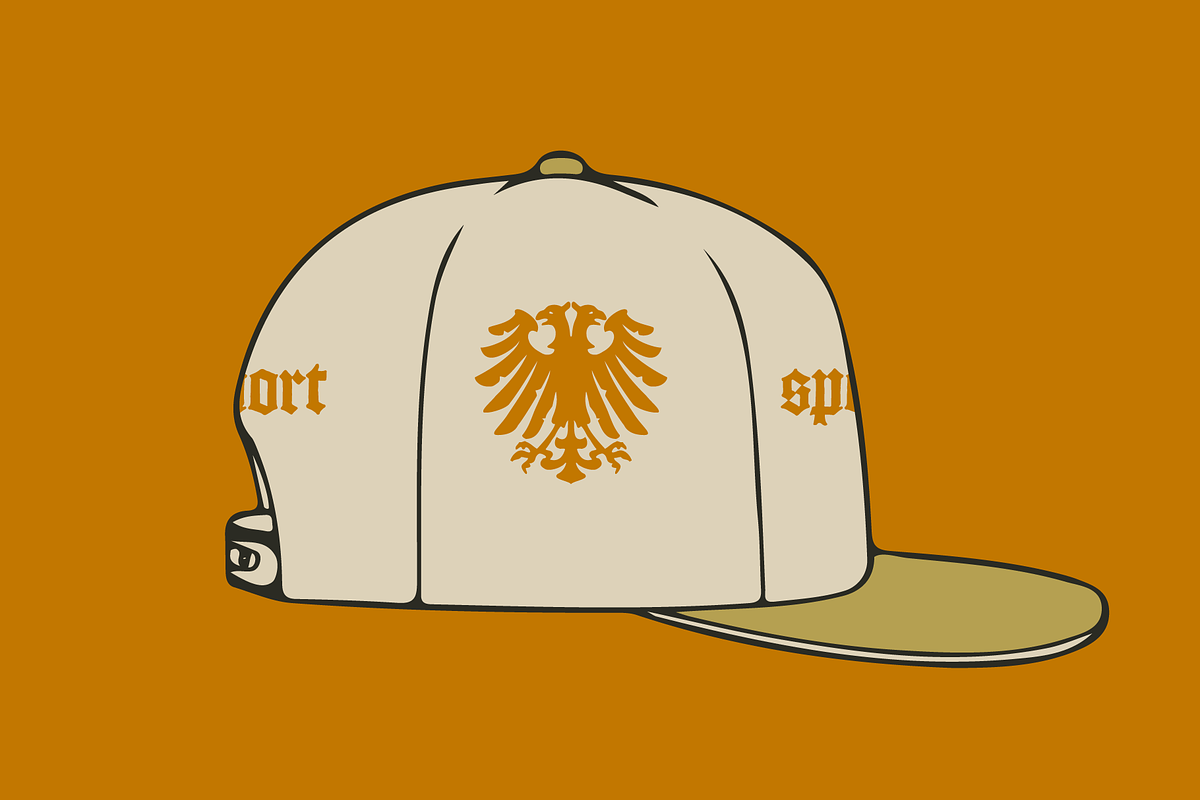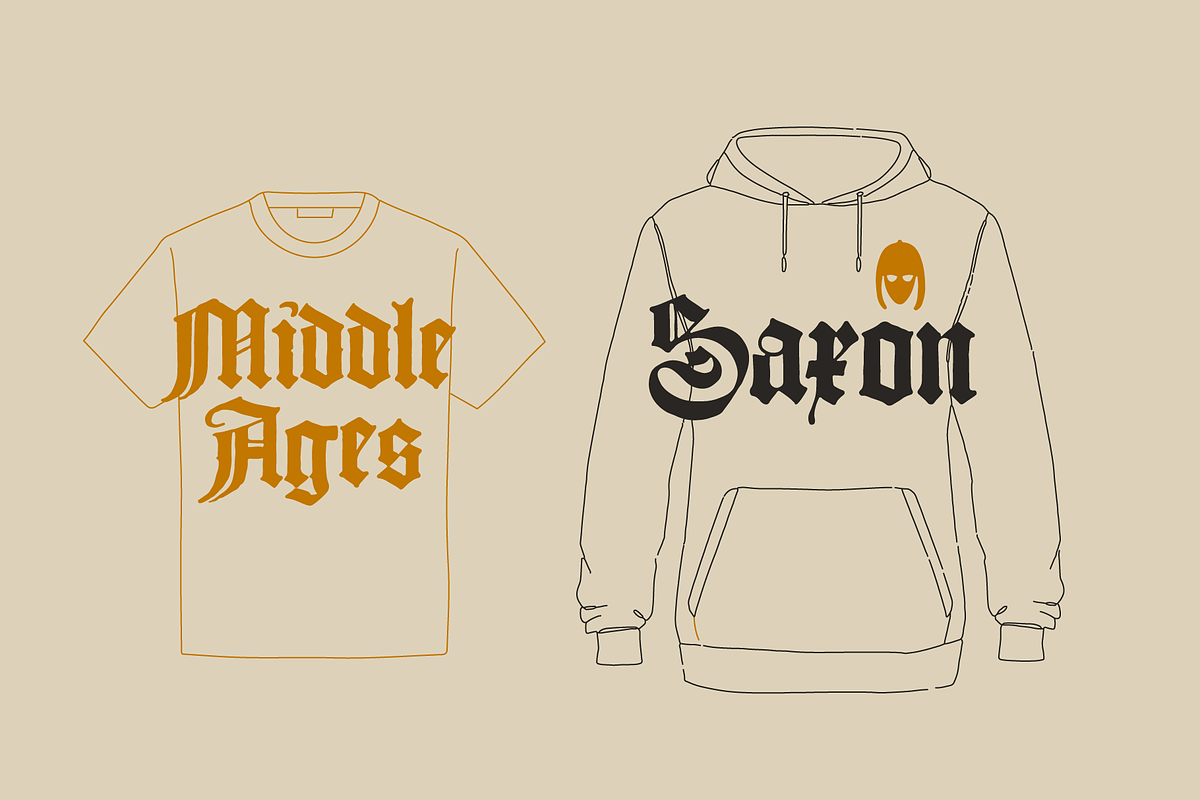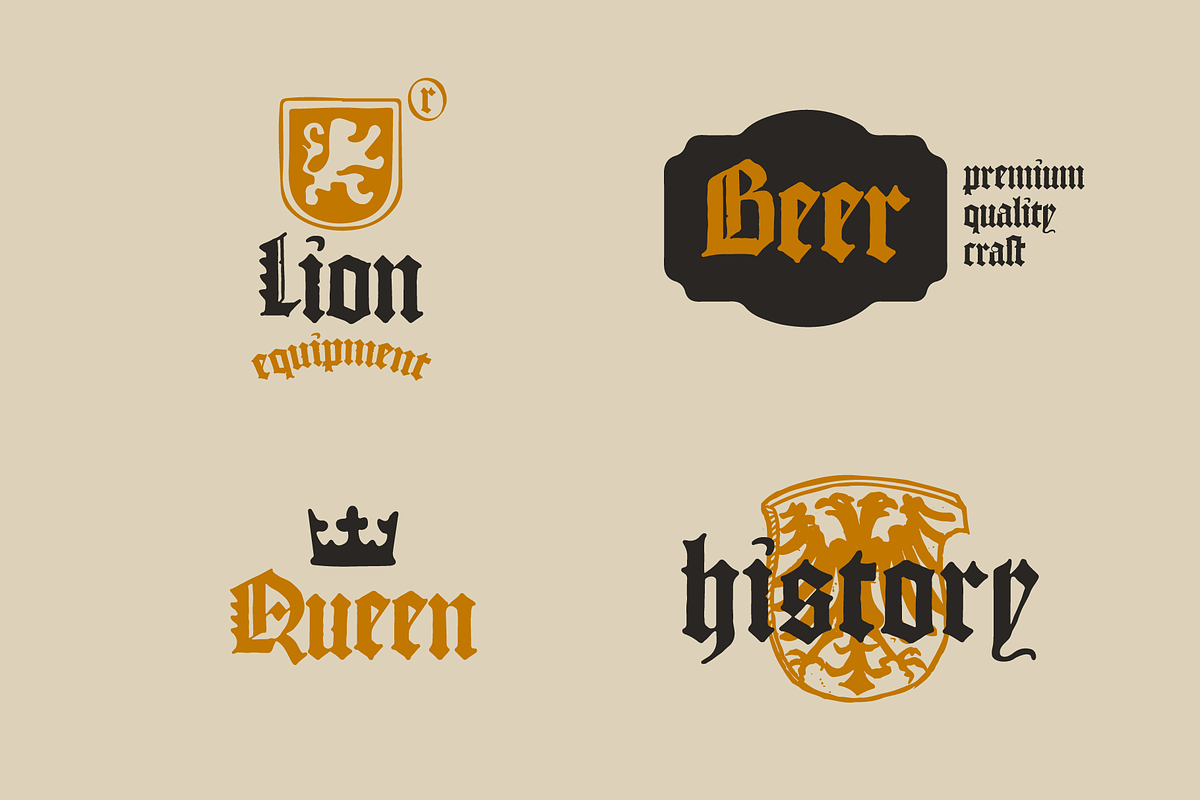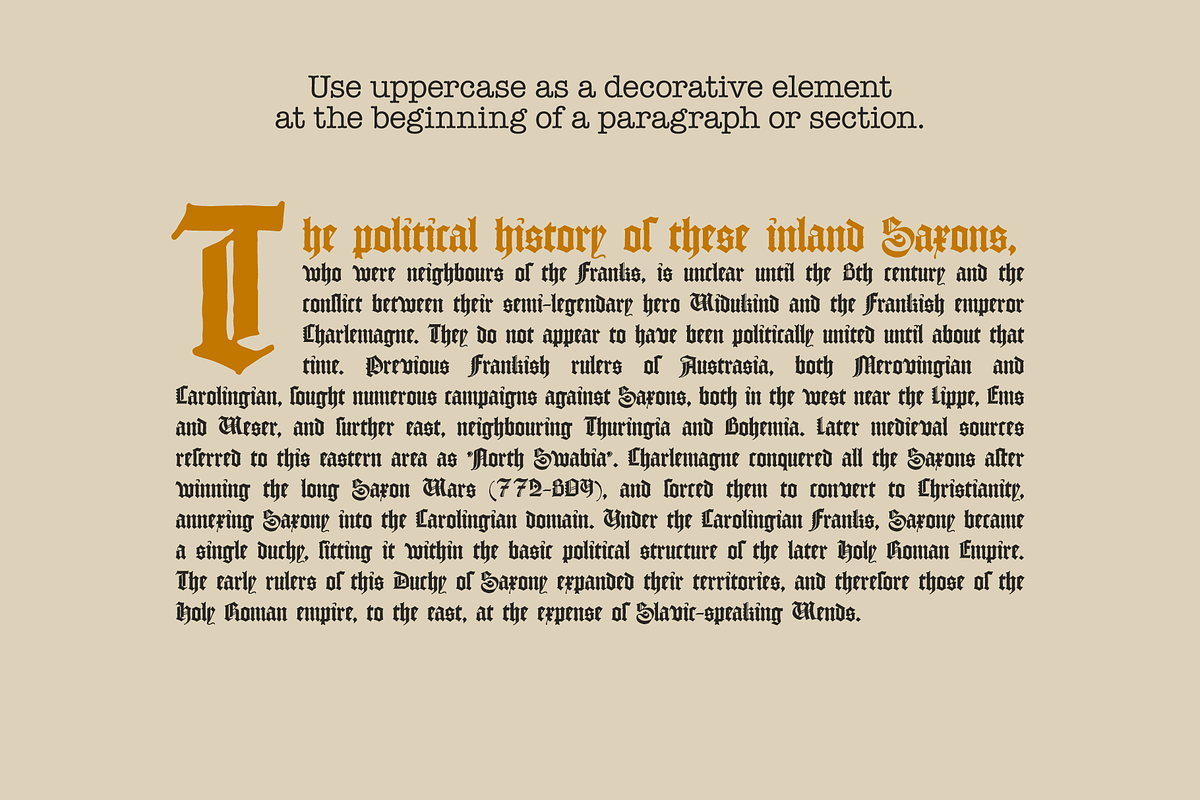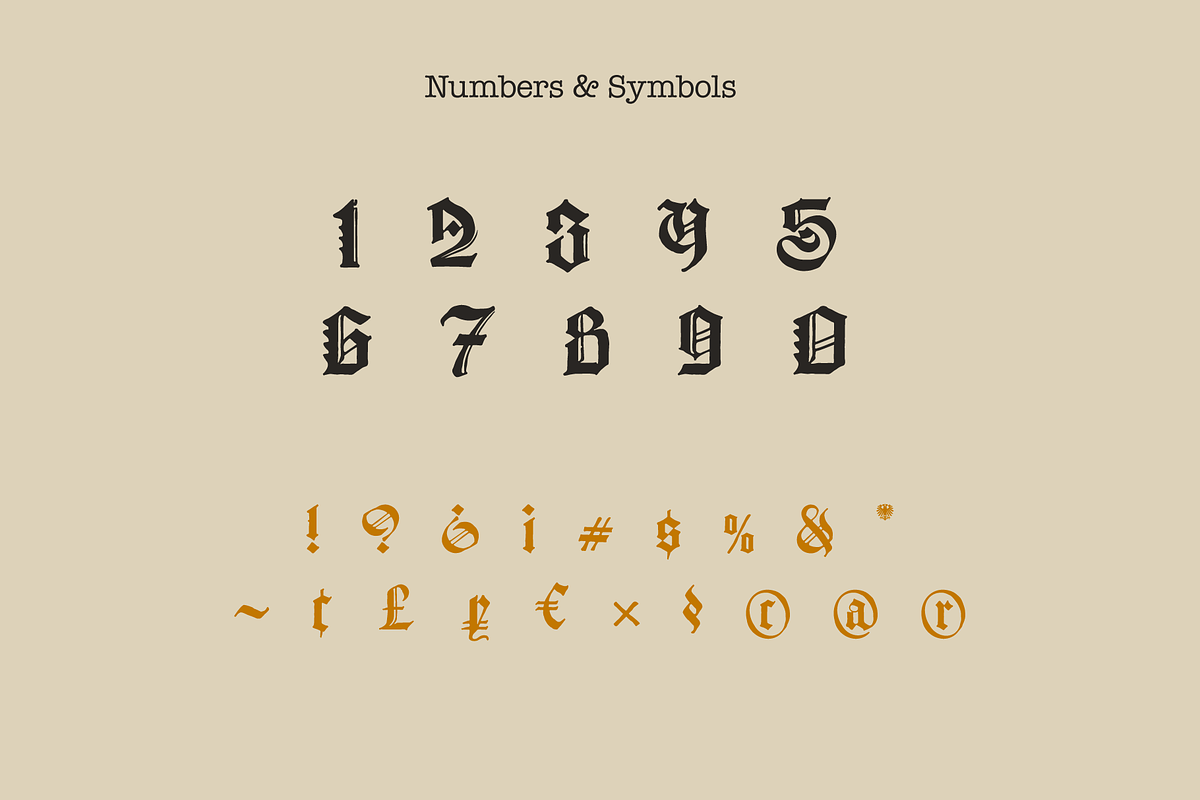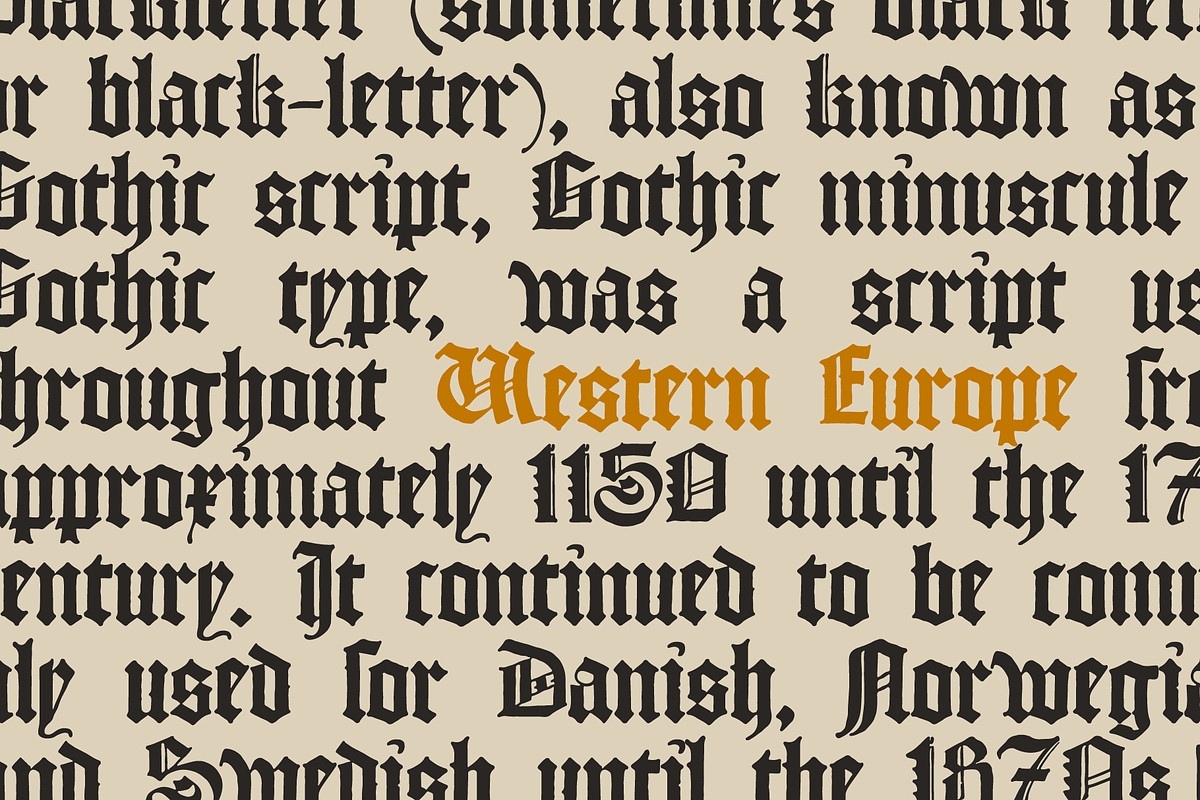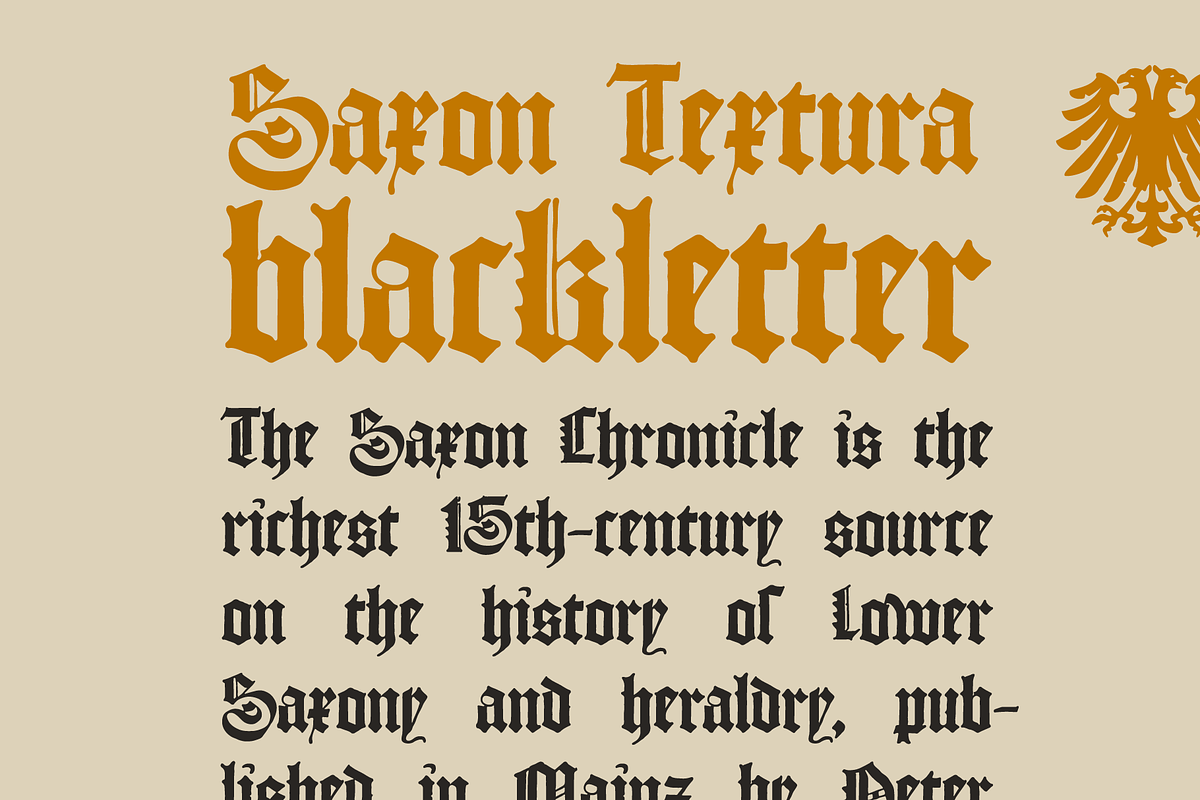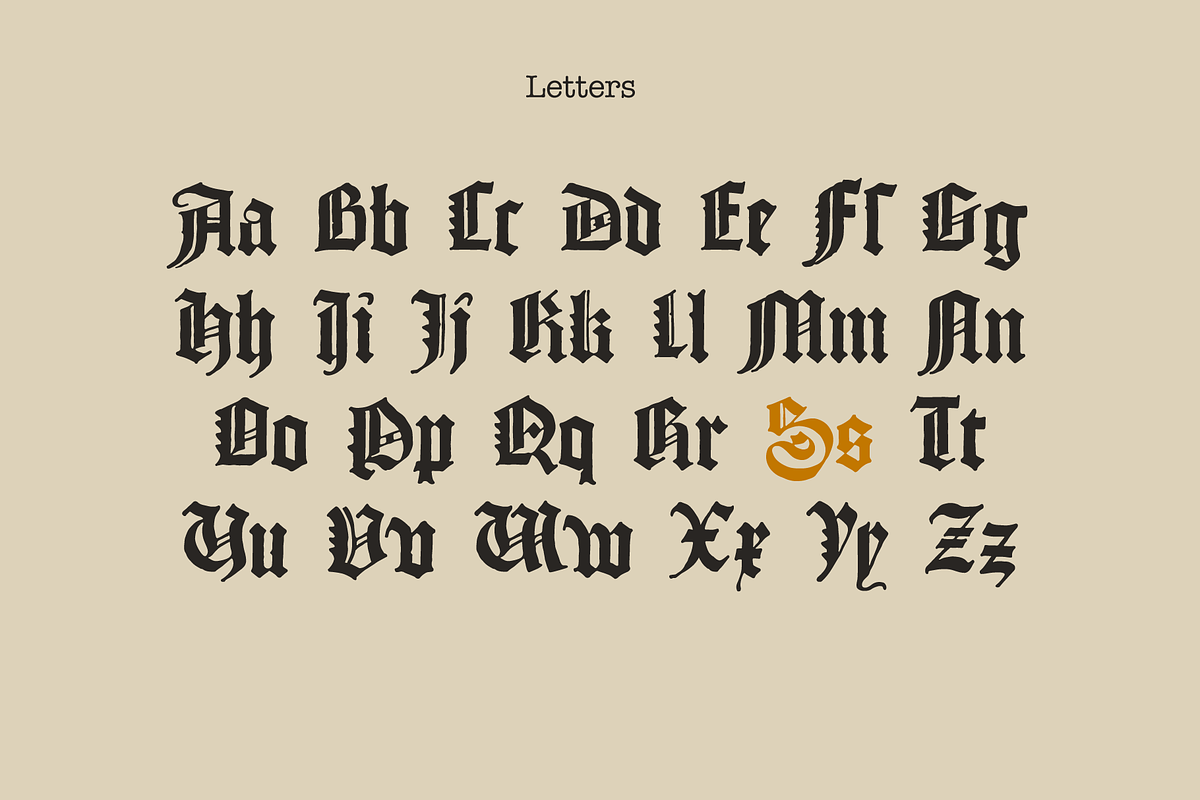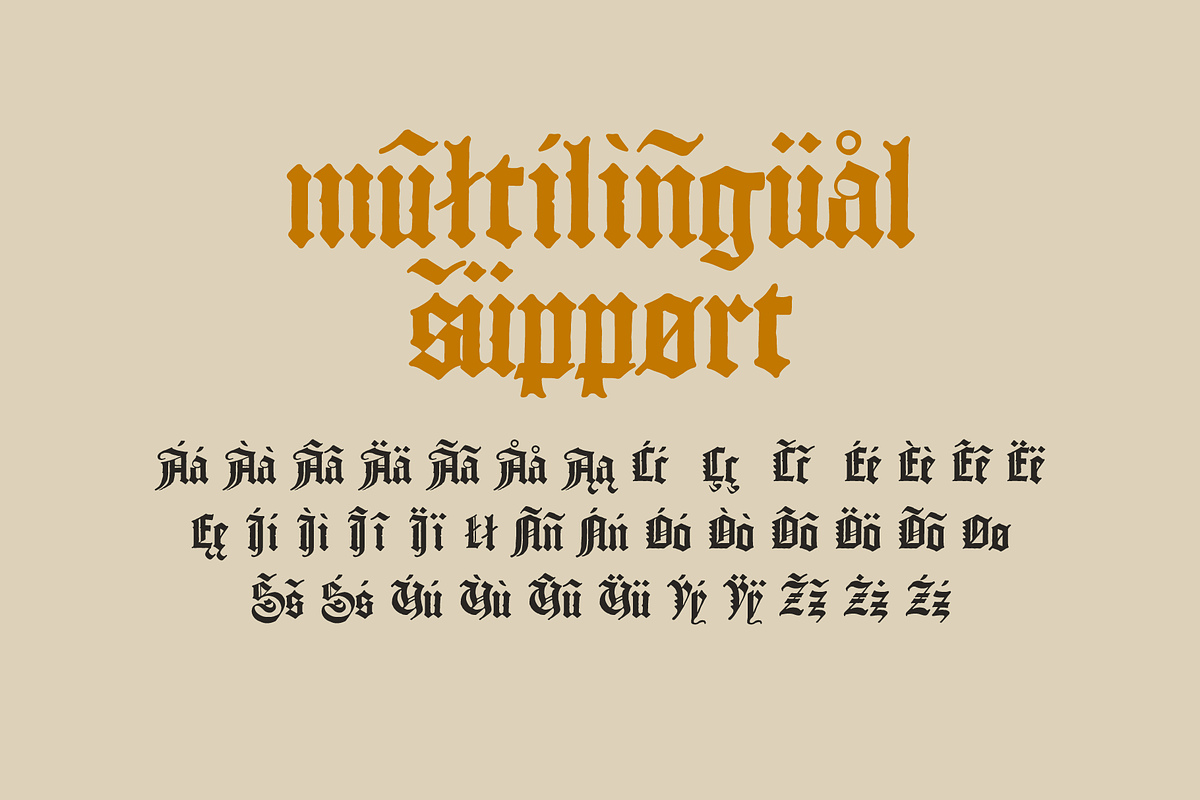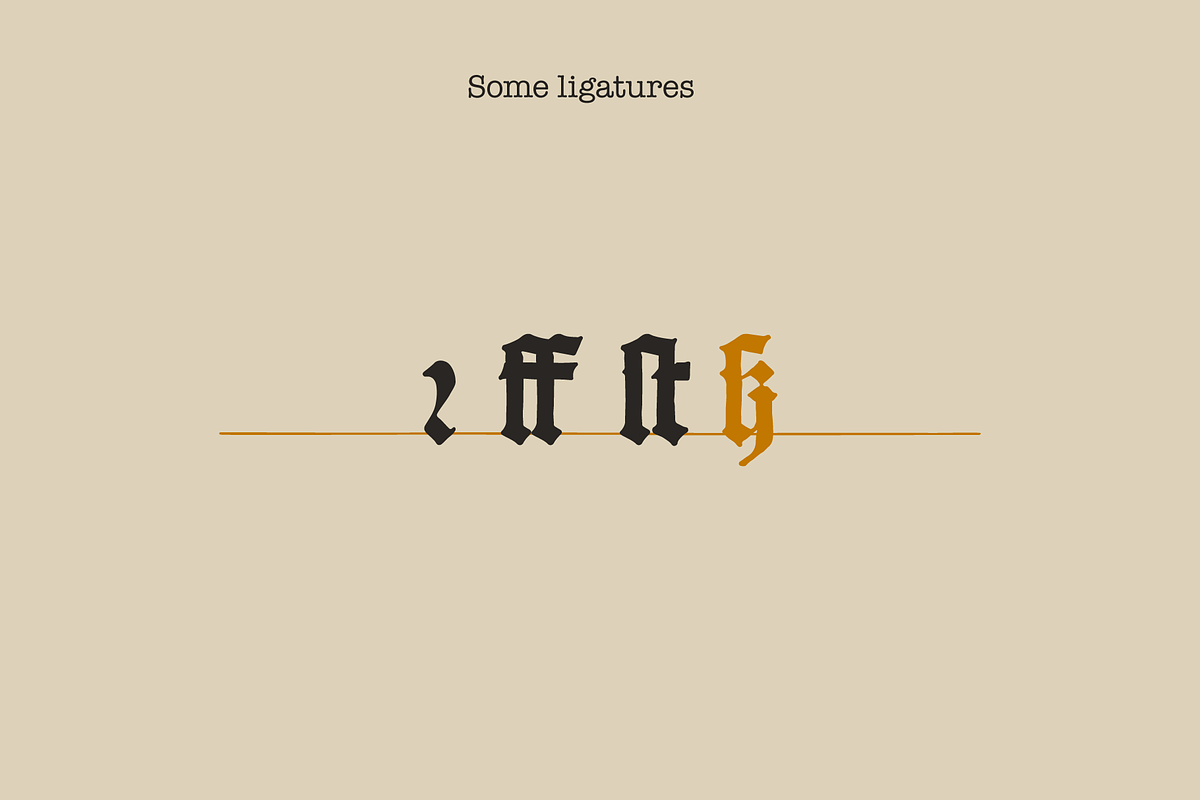
Saxon Textura blackletter
The Saxon Chronicle is the richest 15th-century source on the history of Lower Saxony and heraldry, published in Mainz by Peter Schöffer in 1492.
When we think of the gothic typographic style, Textura or textualis is usually what most of us have in mind. Some of its most obvious characteristics are narrow and tall letters, sharp type lines that ensure there’s no connection between the letters, as well as the use of minims (short, vertical strokes) which made the “i”, “u”, “n”, and “m” letters look alike.
- Numbers and symbols
- Additional glyphs